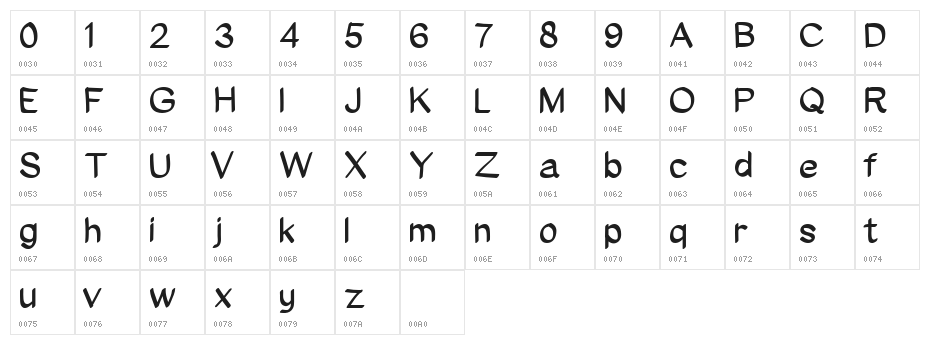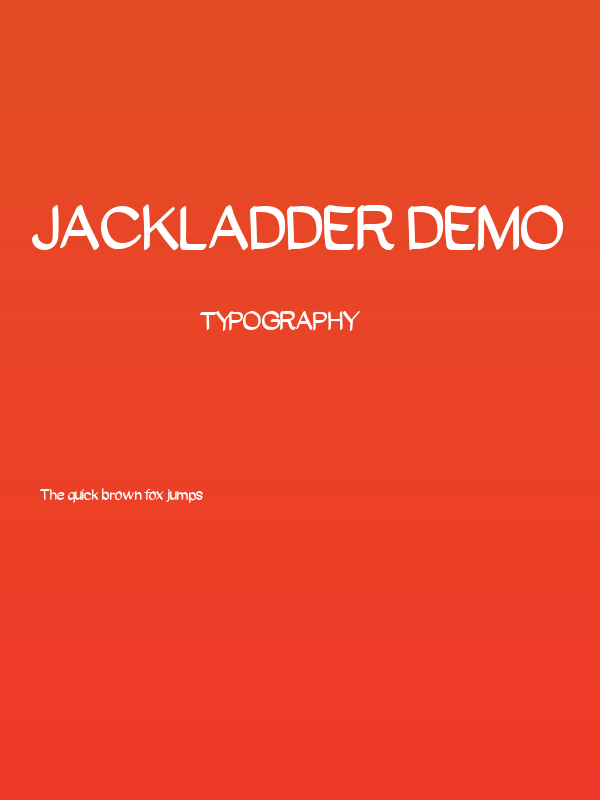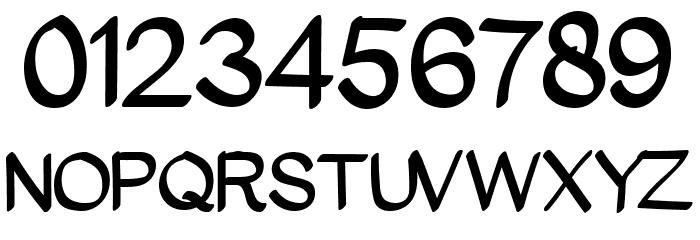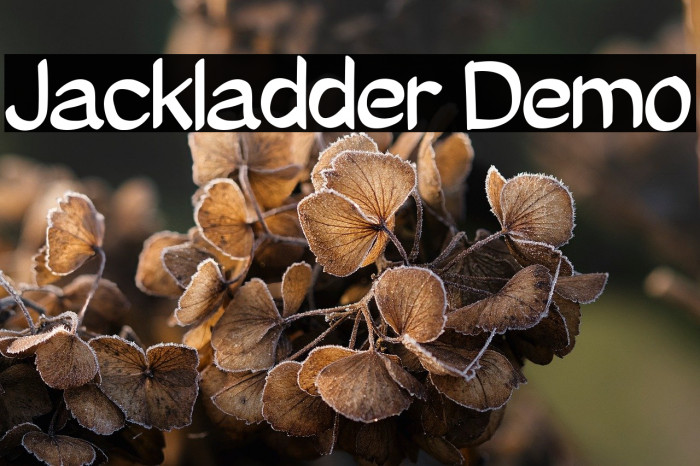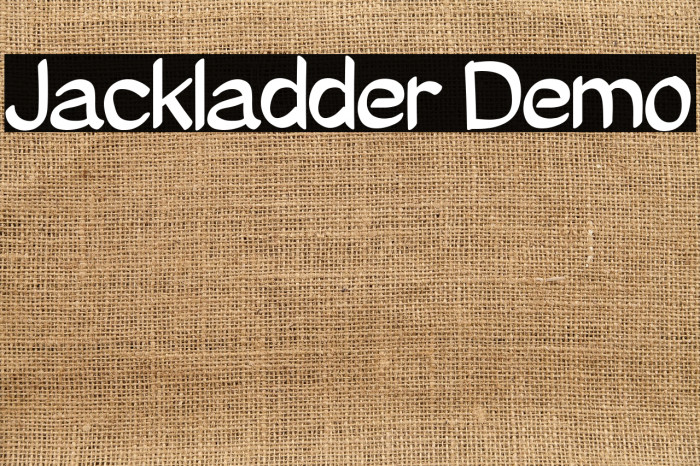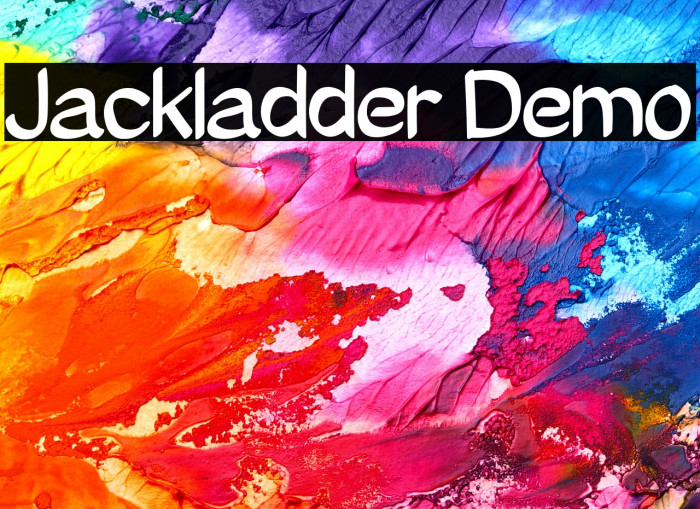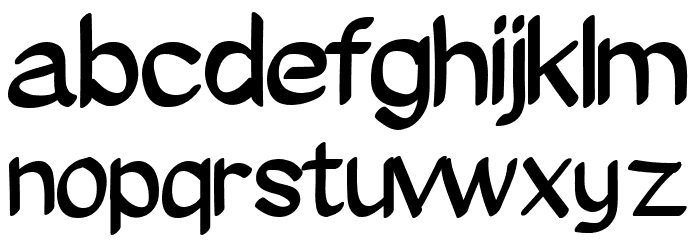
Jackladder Demo Font
This font features a playful and bold design with a handwritten style that gives it a unique and approachable appearance. The characters are slightly rounded with a consistent stroke width, providing a harmonious and balanced look. The uppercase and lowercase letters maintain a cohesive style, while the numerals and special characters complement the overall design. Its informal and friendly vibe makes it suitable for creative projects that aim to convey warmth and personality.
| Proposed Projects | Ideal for children's books, greeting cards, playful branding, and creative posters. |